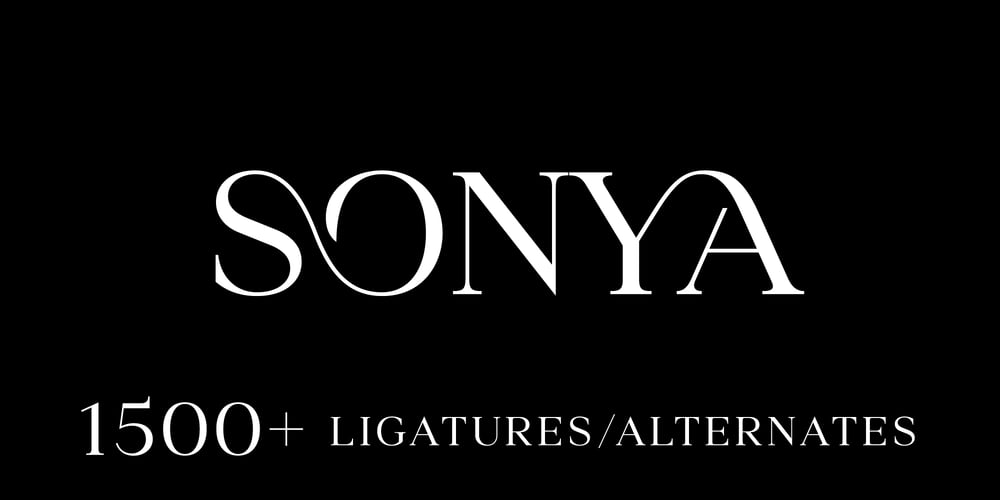
Sonya Font Family was designed by Roman Melikhov and published by Roman Melikhov. Sonya contains 1 styles and family package options. Sonya is a new all-caps serif font that offers a wide variety of alternates and features up to 7 unique ligatures for each two-letter combination.